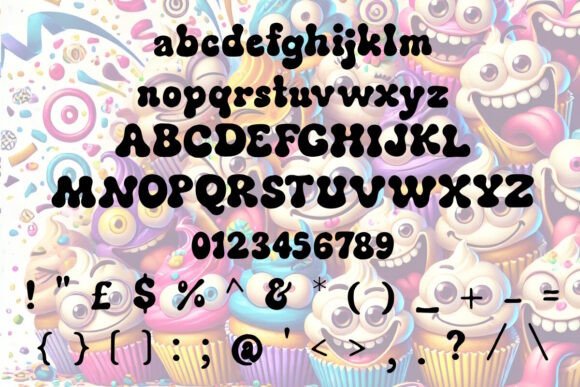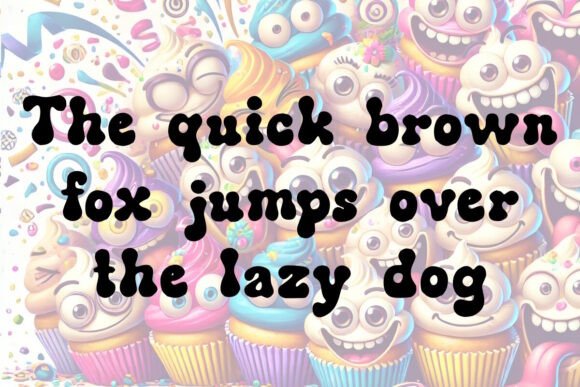
Introduction to Crazy Cakes Font
Who hasn’t been there – staring at a blank page, trying to conjure up the perfect design to match the excitement of a creative project? For designers, it’s the moment when inspiration strikes and the perfect font can make all the difference. Imagine if that font was as fun as it was functional – a true design resource that added a touch of whimsy to your work. That’s exactly what the Crazy Cakes Font offers, with its playful curves and soft, rounded edges that are sure to bring a smile to your face.
As a valuable addition to any designer’s toolkit, Crazy Cakes Font is perfect for those high-quality designs that require a little extra flair. Whether you’re working on party invitations, whimsical branding, or just need a font that’s as fun as it feels, this delightful typeface is ready to bring the celebration to your designs. And the best part? It’s available for a free download, so you can get creative without breaking the bank.
- Crazy Cakes Font is a high-quality design resource ideal for creative projects that require a unique touch.
- The font includes a range of characters, including uppercase and lowercase letters, numbers, and special symbols.
- The font’s unique characteristics, such as its playful and whimsical style, make it an excellent choice for designers seeking to add a touch of personality to their work.
Honest Review: Crazy Cakes Font
I recently had the chance to work with the Crazy Cakes Font, and I must say it’s been a great addition to my design resource library. This font is perfect for any creative project that requires a fun and playful touch. The high quality design of the font is immediately noticeable, and it’s clear that a lot of thought and care went into creating it.
One of the things that works well with the Crazy Cakes Font is its versatility. It can be used for a wide range of applications, from graphic design to web design, and even for personal projects like invitations or party decorations. I also appreciate the transparent background option, which makes it easy to use the font on any background without worrying about clutter.
- ✨ High-quality design that adds a fun and playful touch to any project
- ✨ Versatile font that can be used for a wide range of applications
- ✨ Transparent background option for easy use on any background
To get the most out of Crazy Cakes Font, use it in conjunction with a transparent background to create a high-quality design resource. This font is perfect for creative projects that require a unique and eye-catching touch.
Crazy Cakes Font is commonly used in various design projects, including invitations, social media graphics, and promotional materials. Its free download and high-quality design make it a popular choice among designers.